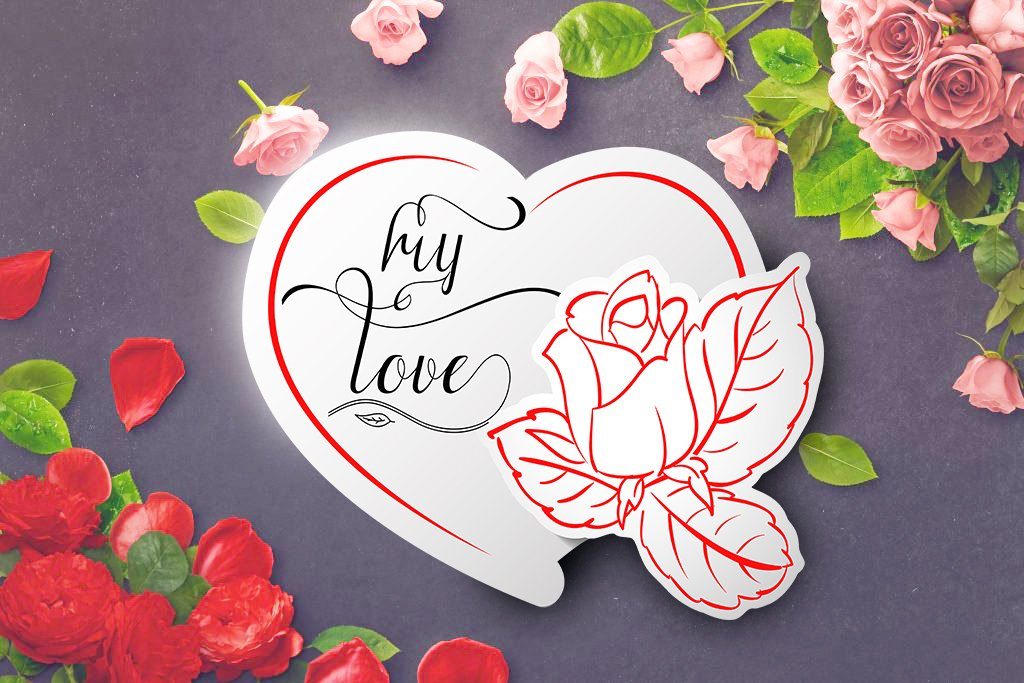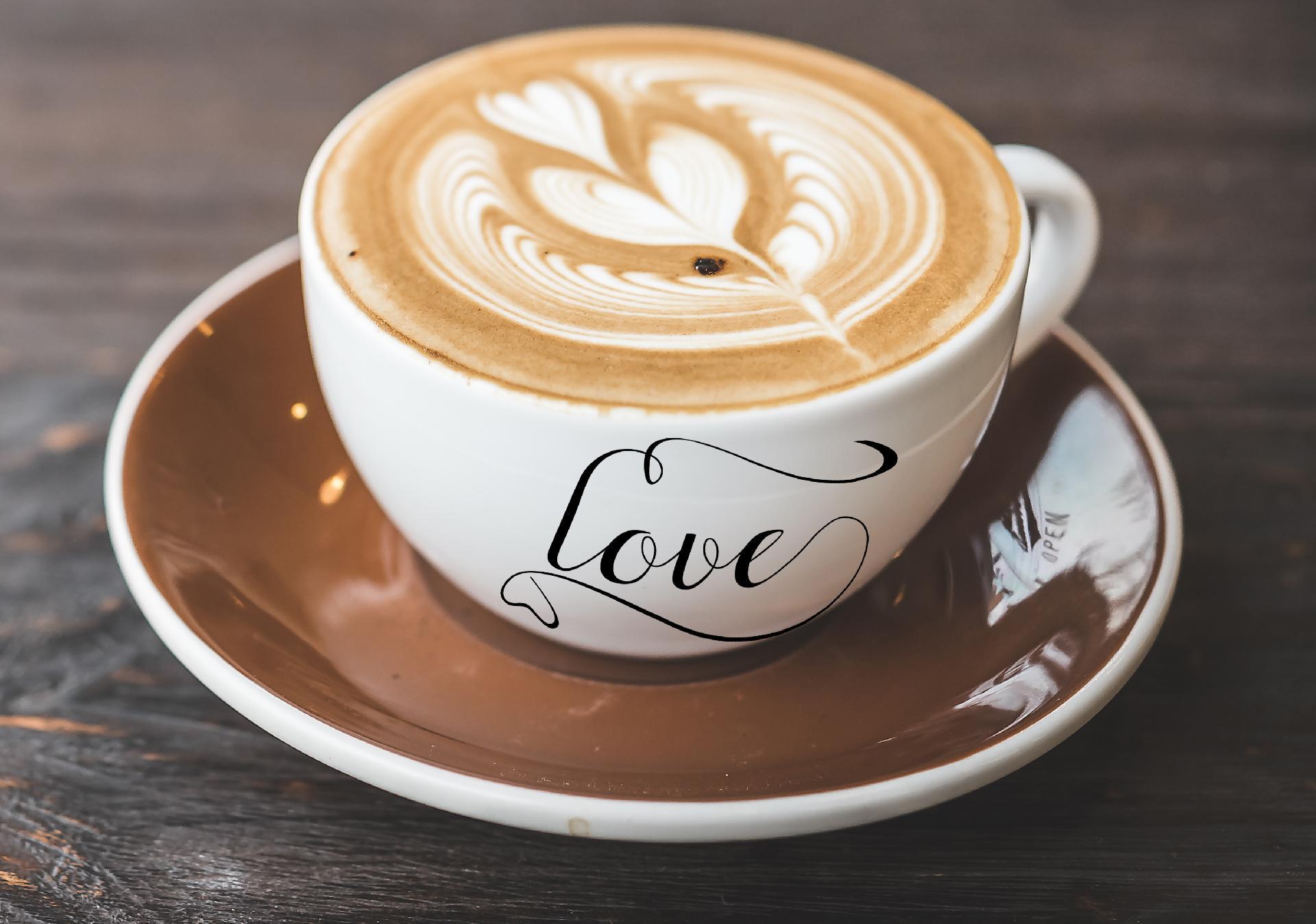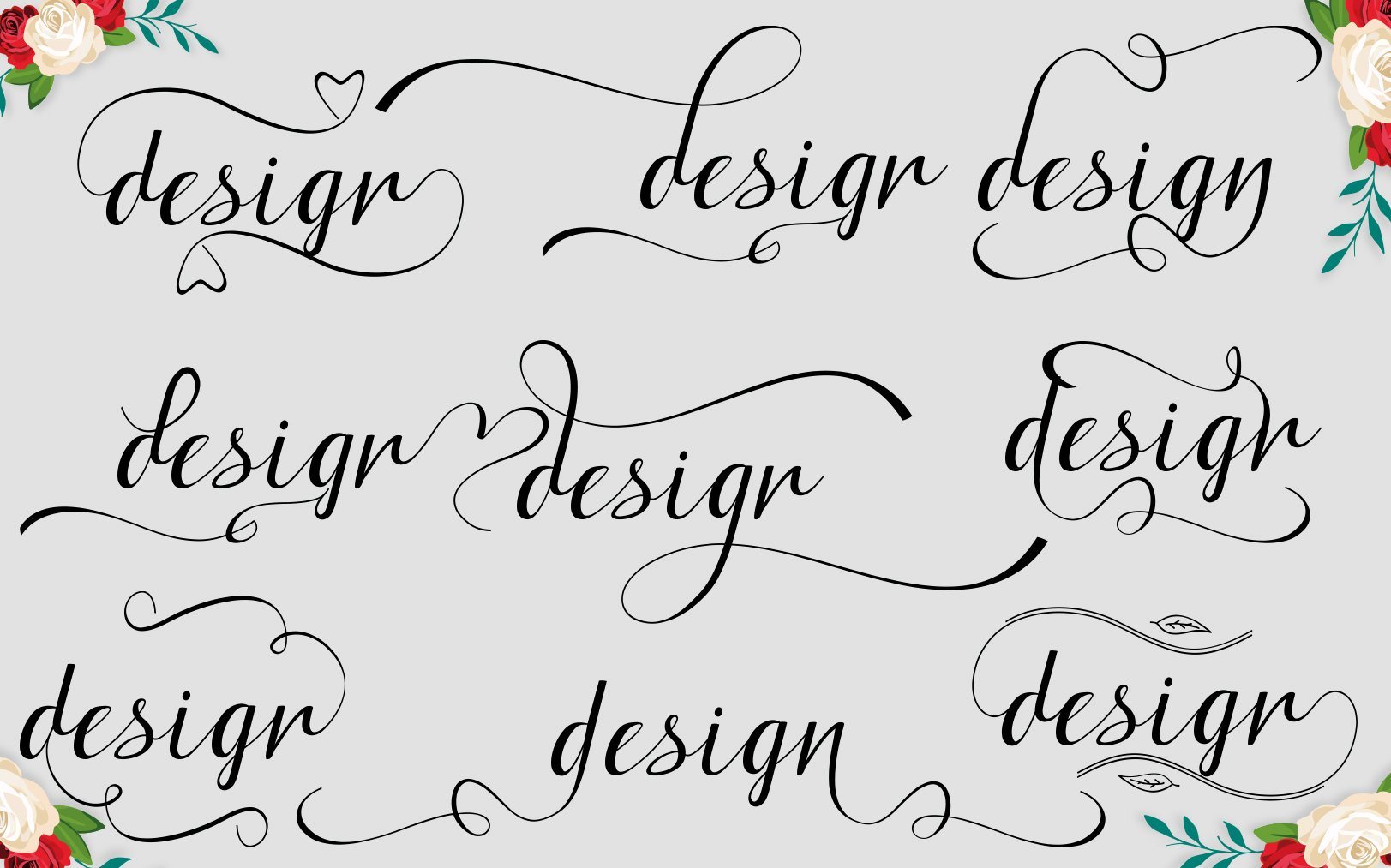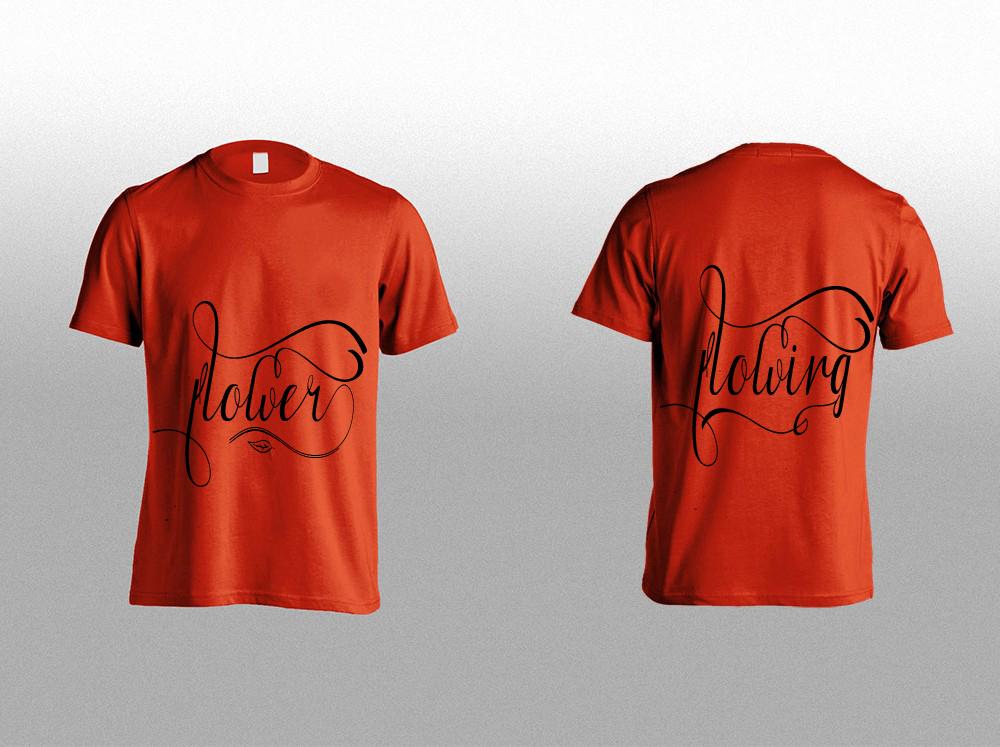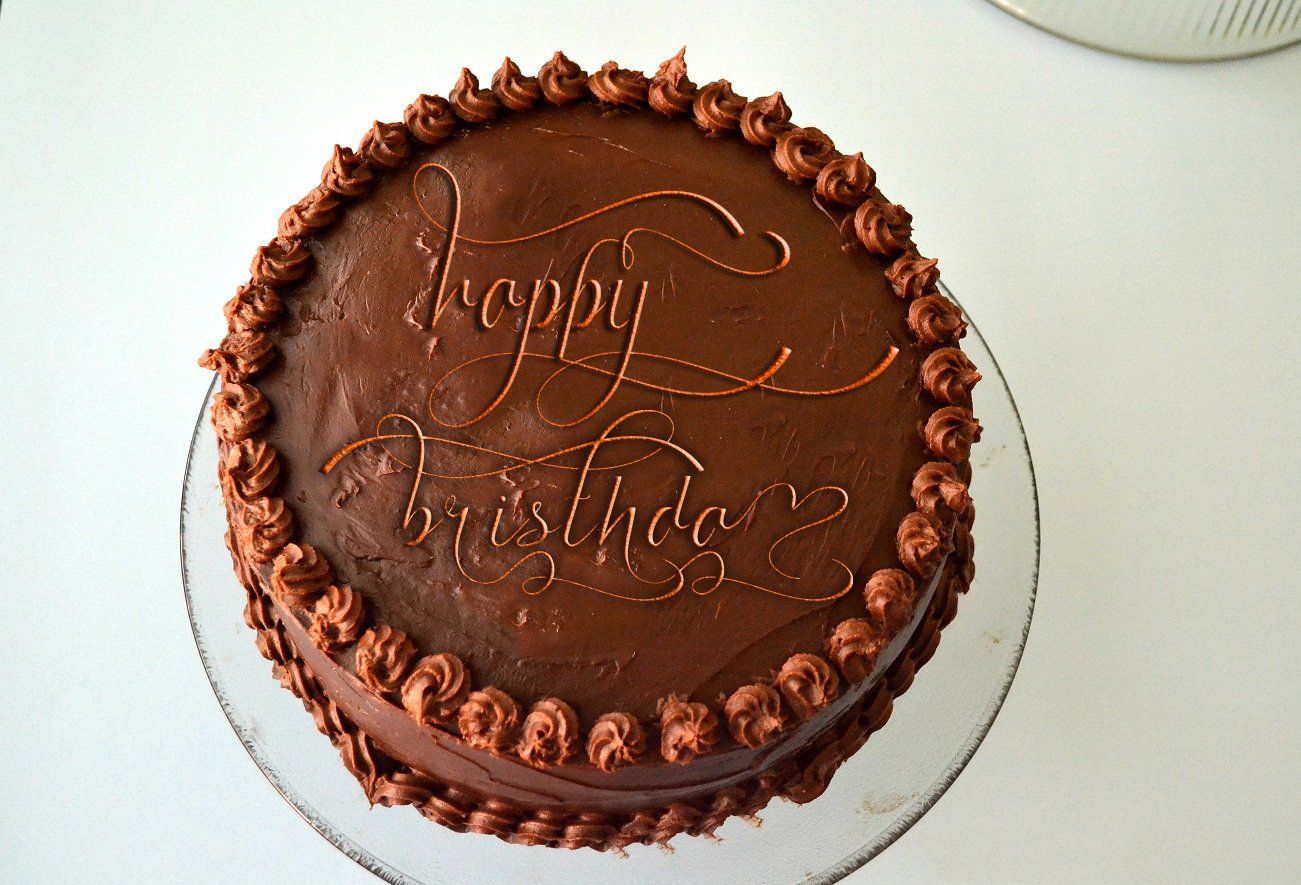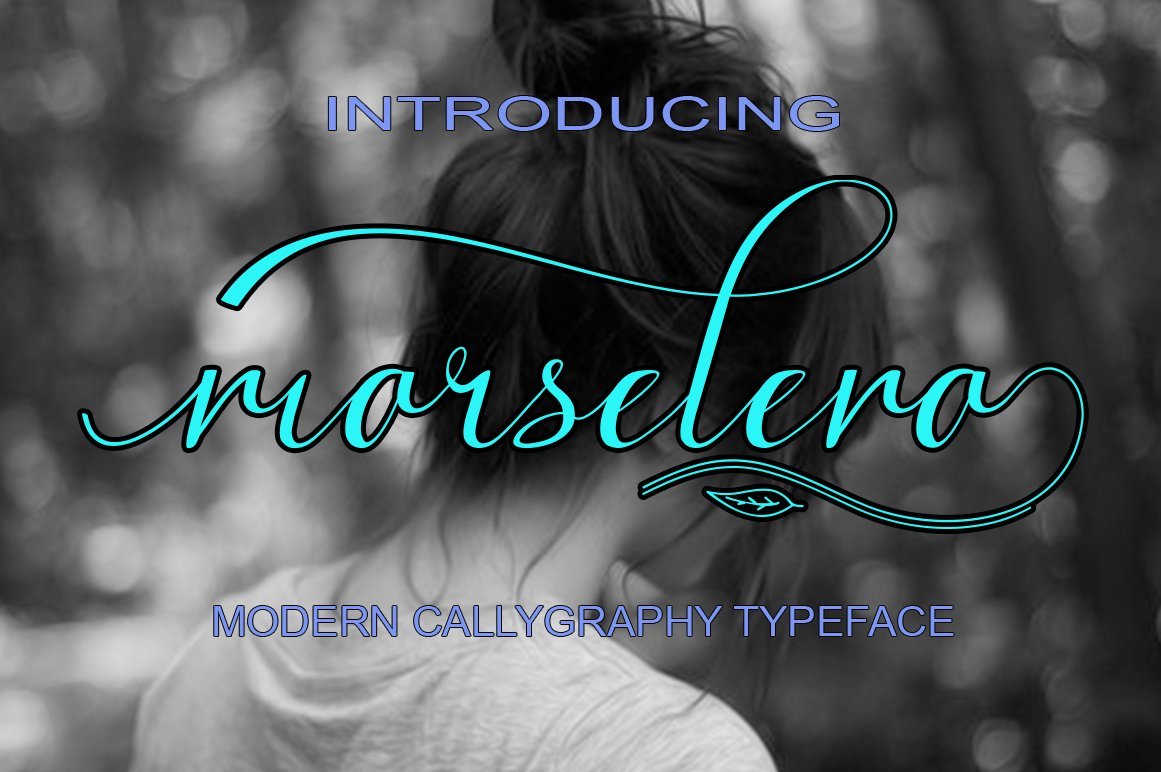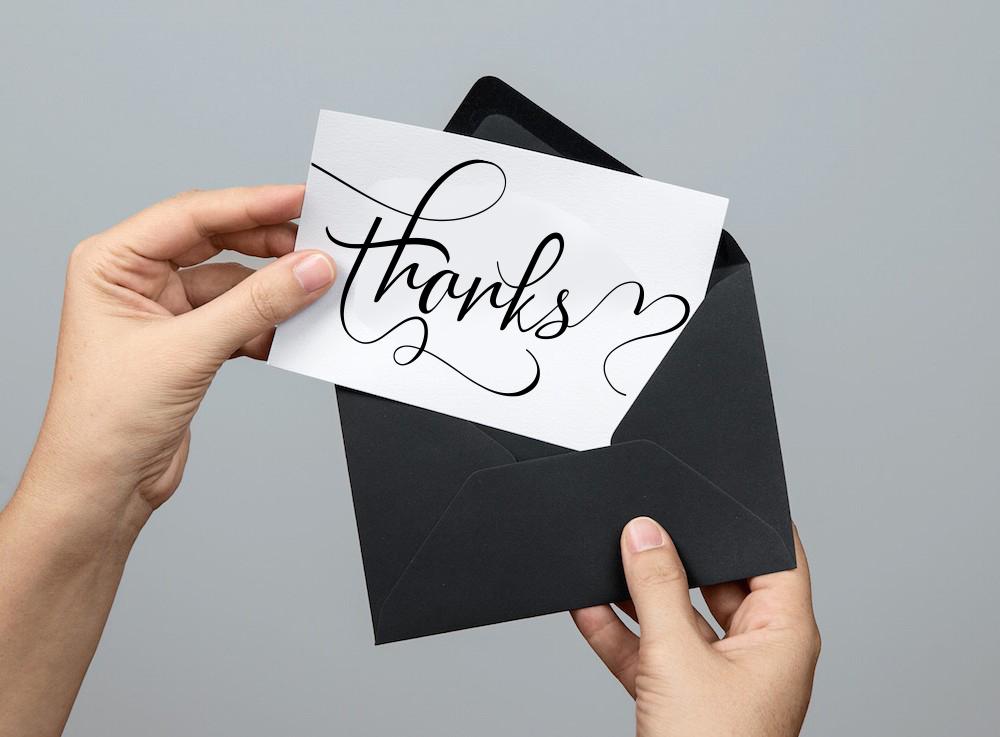
marselena shawthegn
About marselena shawthegn
Hello, all. I Want To Introduce New Fonts marselena shawthegn Script New fresh & modern style with handmade calligraphy, decorative characters and dancing lineage! So wonderful are invitations like greeting cards, branding material, business cards, quotes, posters, and more !! marselena shawthegn Script The comes with 655 glyphs. Alternate characters are divided into several Open Type features such as Swash, Stylistic Sets, Stylistic Alternate, Contextual Alternate. Open Type features are accessible by using Open Type savvy programs such as Adobe Illustrator, Adobe InDesign, Adobe Photoshop Corel Draw X versions, and Microsoft Word. And this font has code PUA unicode (font with special code). So that all alternative characters can be easily accessed by craftsmen or designers. marselena shawthegn Script Uppercase & lowercase International signature & symbol Punctuation Support & PUA number Unicode Style Style Alternative Style Style Range 1-16 Contextual Character Variations. marselena shawthegn Script New fresh & modern style with handmade calligraphy, decorative characters and dancing lineage! So wonderful are invitations like greeting cards, branding material, business cards, quotes, posters, and more !! marselena shawthegn Script The comes with 655 glyphs. Alternate characters are divided into several Open Type features such as Swash, Stylistic Sets, Stylistic Alternate, Contextual Alternate. Open Type features are accessible by using Open Type savvy programs such as Adobe Illustrator, Adobe InDesign, Adobe Photoshop Corel Draw X versions, and Microsoft Word. And this font has code PUA unicode (font with special code). So that all alternative characters can be easily accessed by craftsmen or designers. marselena shawthegn Script Uppercase & lowercase International signature & symbol Punctuation Support & PUA number Unicode Style Style Alternative Style Style Range 1-16 Contextual Character Variations. ZIP files include the following: marselena shawthegn.OTF Script marselena shawthegn.TTF Script marselena shawthegn Web Font Script (eot, svg, woff, woff2) If you do not have programs that support OpenType features like Adobe Illustrator and CorelDraw X Versions, you can access all alternative flying machines using Font Book (Mac) or Character Map (Windows).